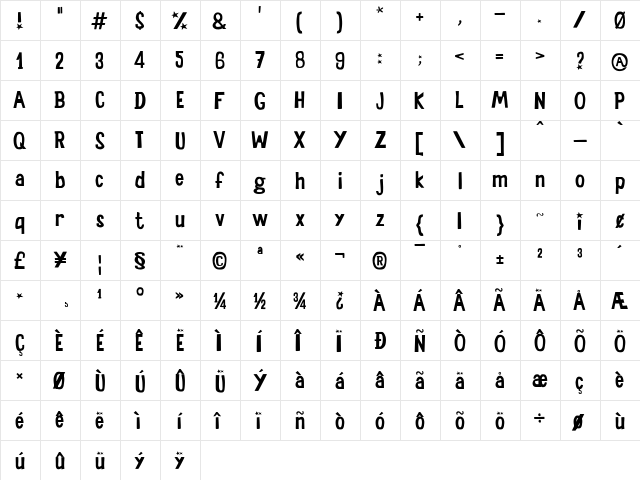
Sala de Fiestas Regular
| Foundry | studio kmzero |
| Designer | Studio Kmzero |
Design Context for Sala de Fiestas Typeface
Sala de Fiestas is a composed and adaptable typeface that performs quietly and consistently across a wide range of design contexts.